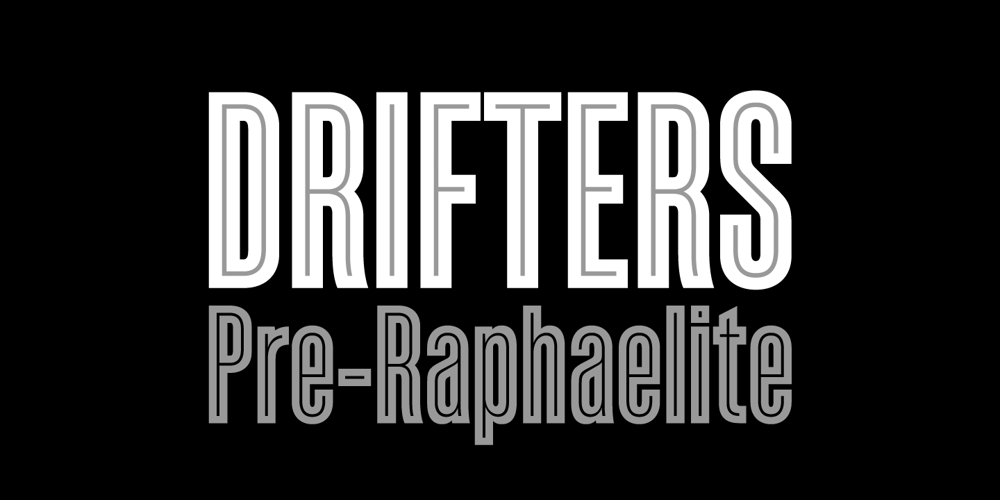
Enamel Font Family was designed by Michael Jarboe and published by Reserves. Enamel contains 3 styles and family package options. Enamel is an inline bold condensed sans based on a modified version of Sorren. The original letterforms have been customized and carefully adapted to accommodate the monolinear inlay. The dual layers that make up Enamel are united as one with the Inline style, yet are available as separate styles for managing multicolor use. Stylistically, Enamel expands on Sorren’s classic, timeless feel with the inline detailing exuding a feel reminiscent of traditional lettering and signage art. For more contemporary, experimental applications the two extreme layer styles can be used independently of each other extending its use beyond tradition. Features include: Precision kerning Standard Ligatures set including ‘f’ ligatures (ff, fi, fj, fl, ffi, ffj, ffl, ae, oe, AE, OE) Discretionary Ligatures set including (No [numero]) Alternate characters (Aringacute, hcircumflex, and numero sign) Case forms (shifts various punctuation marks up to a position that works better with all-capital sequences) Capital Spacing (globally adjusts inter-glyph spacing for all-capital text) Slashed zero Full set of numerators/denominators superior/inferior numerals Tabular Lining, Proportional Lining, Tabular Oldstyle and Proportional Oldstyle Figures Automatic fraction feature (supports any fraction combination) Extended language support (Latin-1 and Latin Extended-A) *Requires an application with OpenType and/or Unicode support.